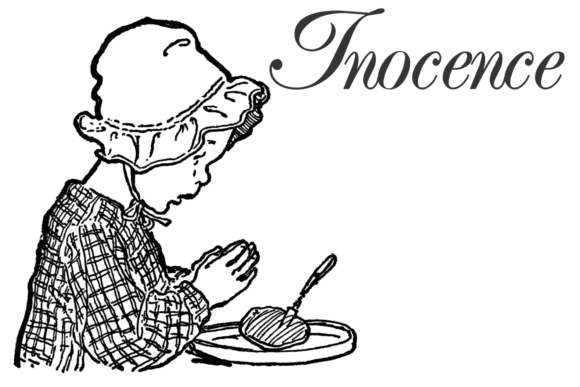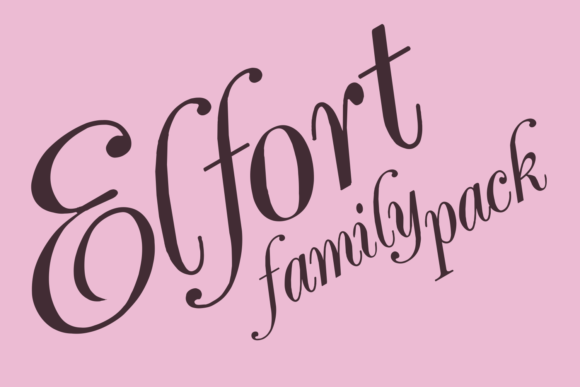
Discover the Charm of Elfort Font: A Lovely Script Face for Antique, Vintage, and Romantic Designs
Are you a designer or crafter looking for a unique and captivating font to elevate your creative projects? Look no further than Elfort Font, a beautifully remastered script face that exudes antique, vintage, and romantic charm. Derived from found drawings, this lovely font is sure to add a touch of elegance and sophistication to your designs.
The Story Behind Elfort Font
Elfort Font is a carefully crafted script face that has been remastered from original found drawings. The result is a font that boasts a distinctive, hand-crafted feel that is perfect for designers and crafters seeking to add a personal touch to their work. With its intricate lettering and classic lines, Elfort Font is an excellent choice for a wide range of creative projects, from antique and vintage-inspired designs to romantic and whimsical themes.
Key Features of Elfort Font
So, what makes Elfort Font so special? Here are just a few of its key features:
- Lovely Script Face: Elfort Font boasts a beautiful, flowing script face that is perfect for adding a touch of elegance to your designs.
- Remastered from Found Drawings: The font’s unique character is derived from original found drawings, giving it a distinctive, hand-crafted feel.
- Three Styles in the Pack: Elfort Font comes in three different styles, allowing you to experiment with different looks and feels to find the one that best suits your project.
- Perfect for Antique, Vintage, and Romantic Designs: Whether you’re creating designs for a wedding, a vintage-themed advertisement, or an antique-inspired product, Elfort Font is an excellent choice.
Uses for Elfort Font
Elfort Font is an incredibly versatile font that can be used in a wide range of creative projects, including:
- Wedding Designs: Add a touch of romance and elegance to your wedding invitations, stationery, and other designs with Elfort Font.
- Vintage Advertising: Create eye-catching, vintage-inspired advertisements with Elfort Font’s unique script face.
- Antique-Inspired Products: Use Elfort Font to add a touch of classic charm to your antique-inspired products, such as packaging, labels, and branding materials.
- Romantic Gifts: Create beautiful, one-of-a-kind gifts, such as customized mugs, tote bags, and journals, with Elfort Font.
Tips for Using Elfort Font
To get the most out of Elfort Font, here are a few tips to keep in mind:
- Experiment with Different Styles: Try out each of the three styles included in the pack to find the one that best suits your project.
- Pair with Other Fonts: Combine Elfort Font with other fonts to create a unique and eye-catching design.
- Use for Headings and Titles: Elfort Font is perfect for headings and titles, where its elegant script face can really shine.
In conclusion, Elfort Font is a beautiful, versatile script face that is perfect for designers and crafters seeking to add a touch of antique, vintage, and romantic charm to their creative projects. With its intricate lettering, classic lines, and three different styles to choose from, Elfort Font is an excellent choice for a wide range of applications. So why wait? Download Elfort Font today and start creating stunning designs that will leave a lasting impression!